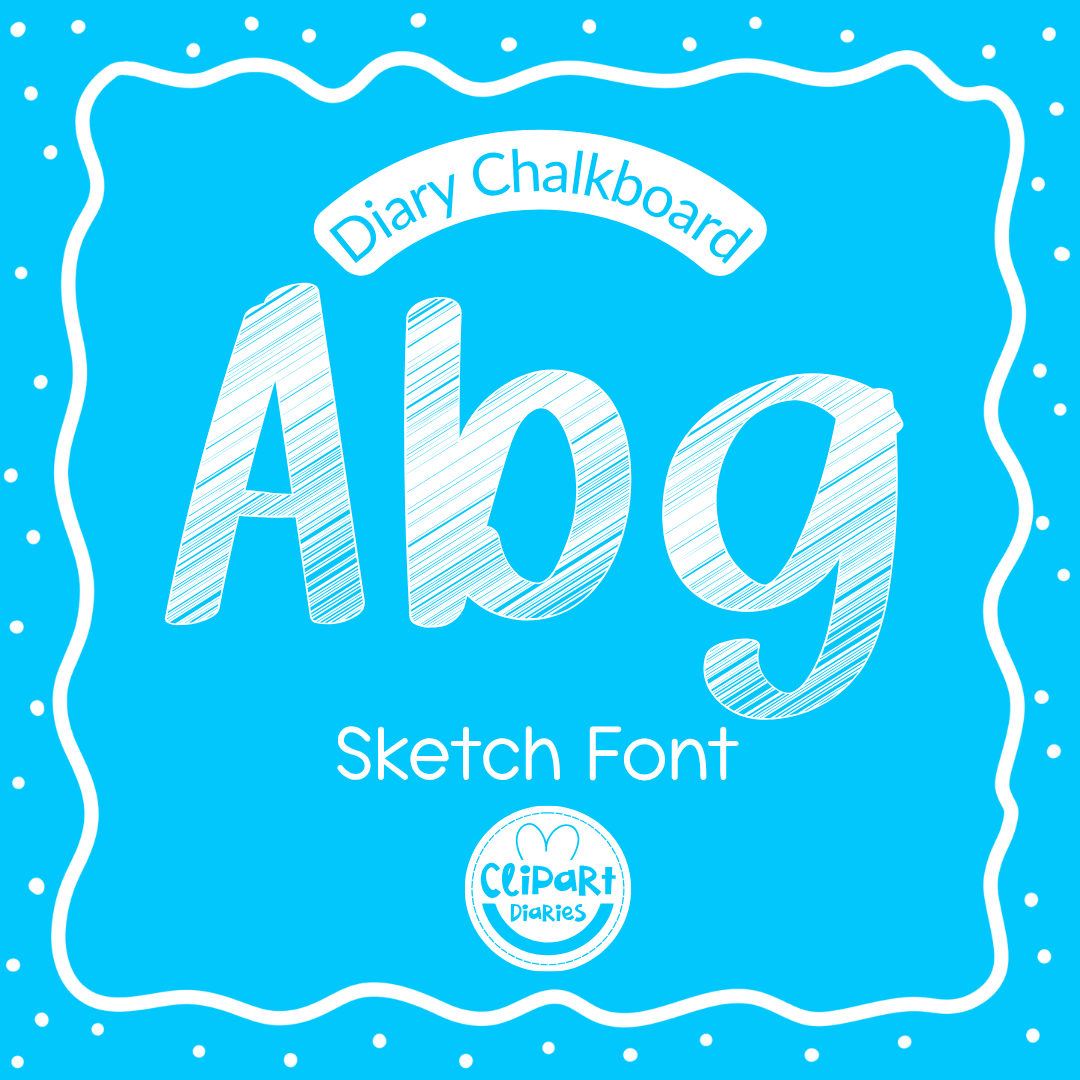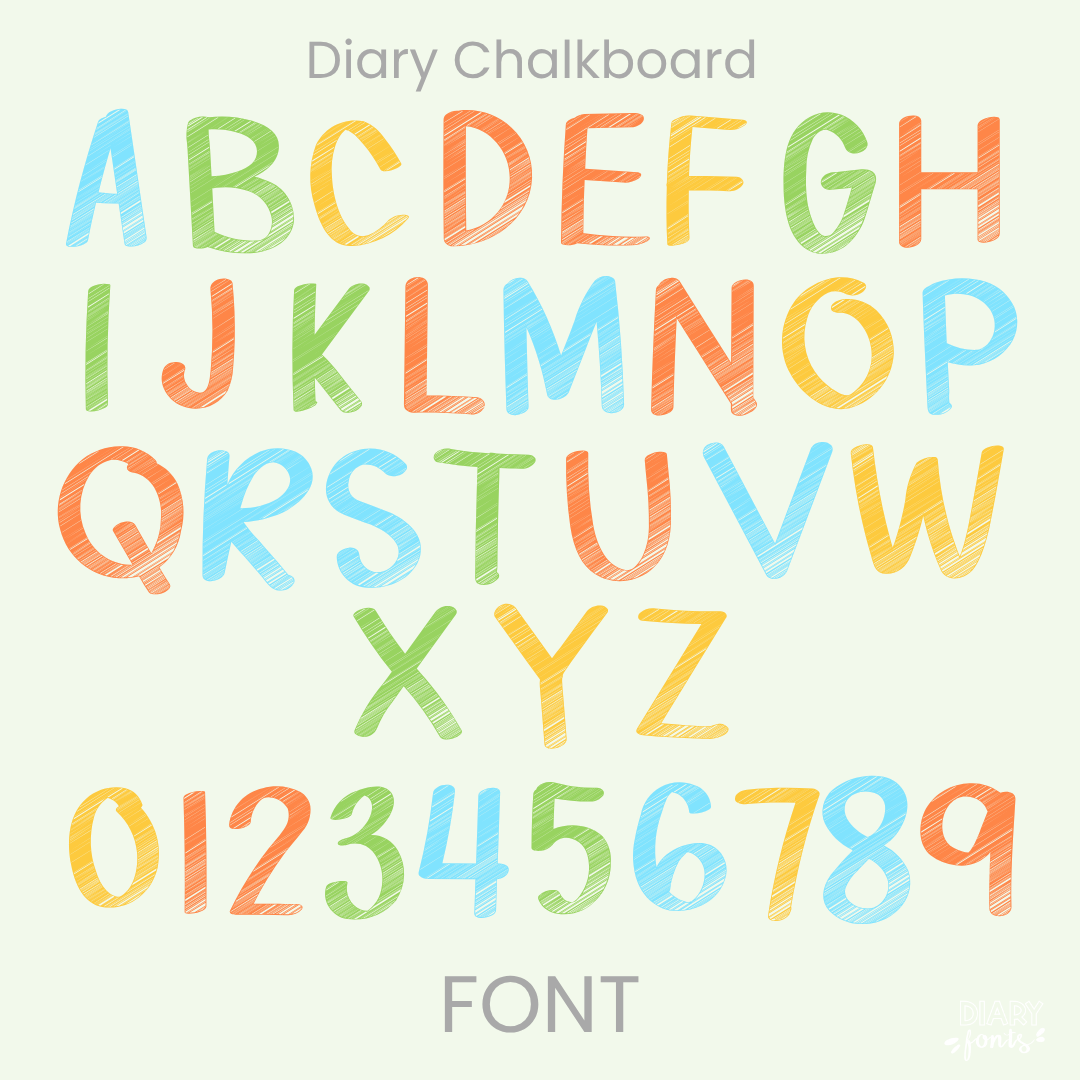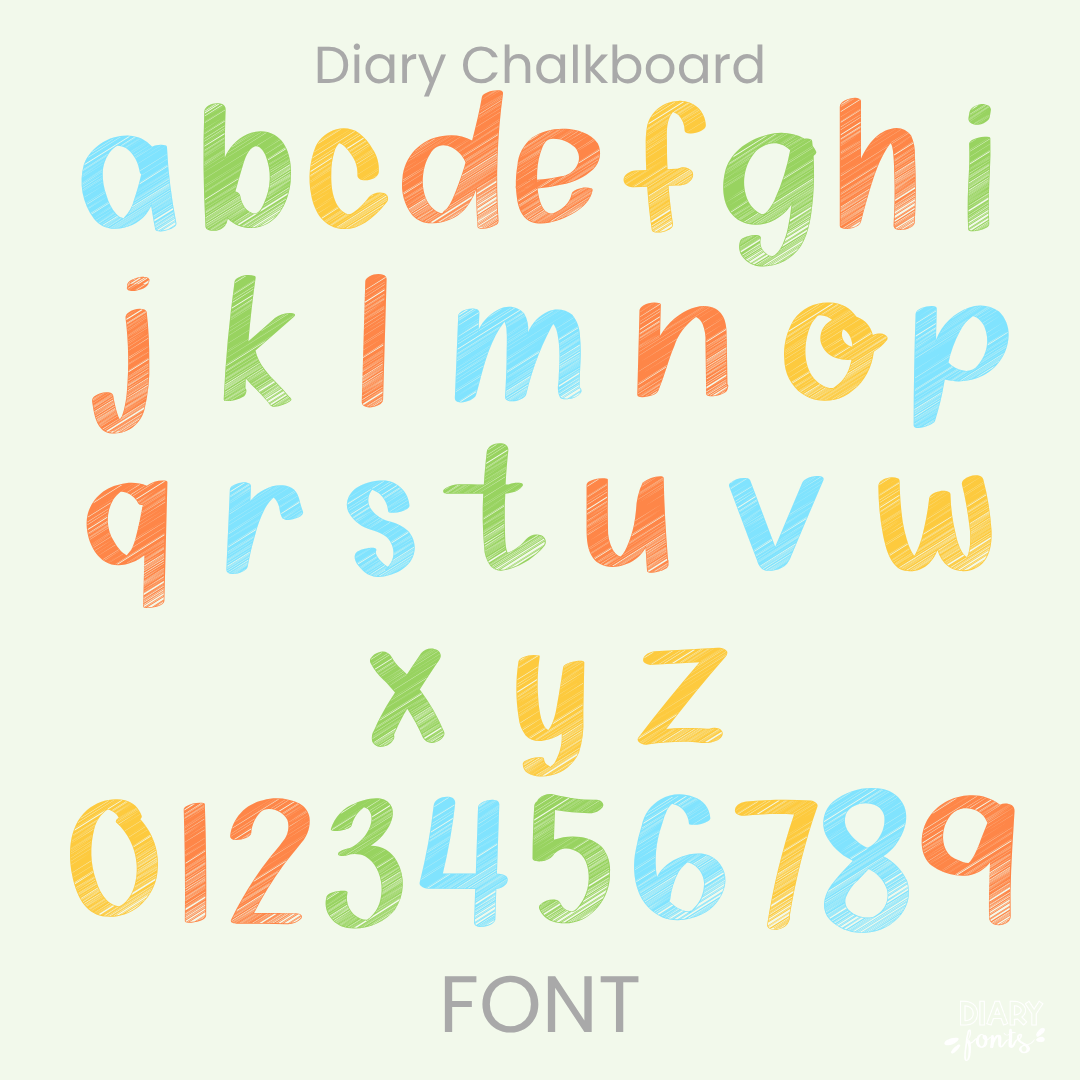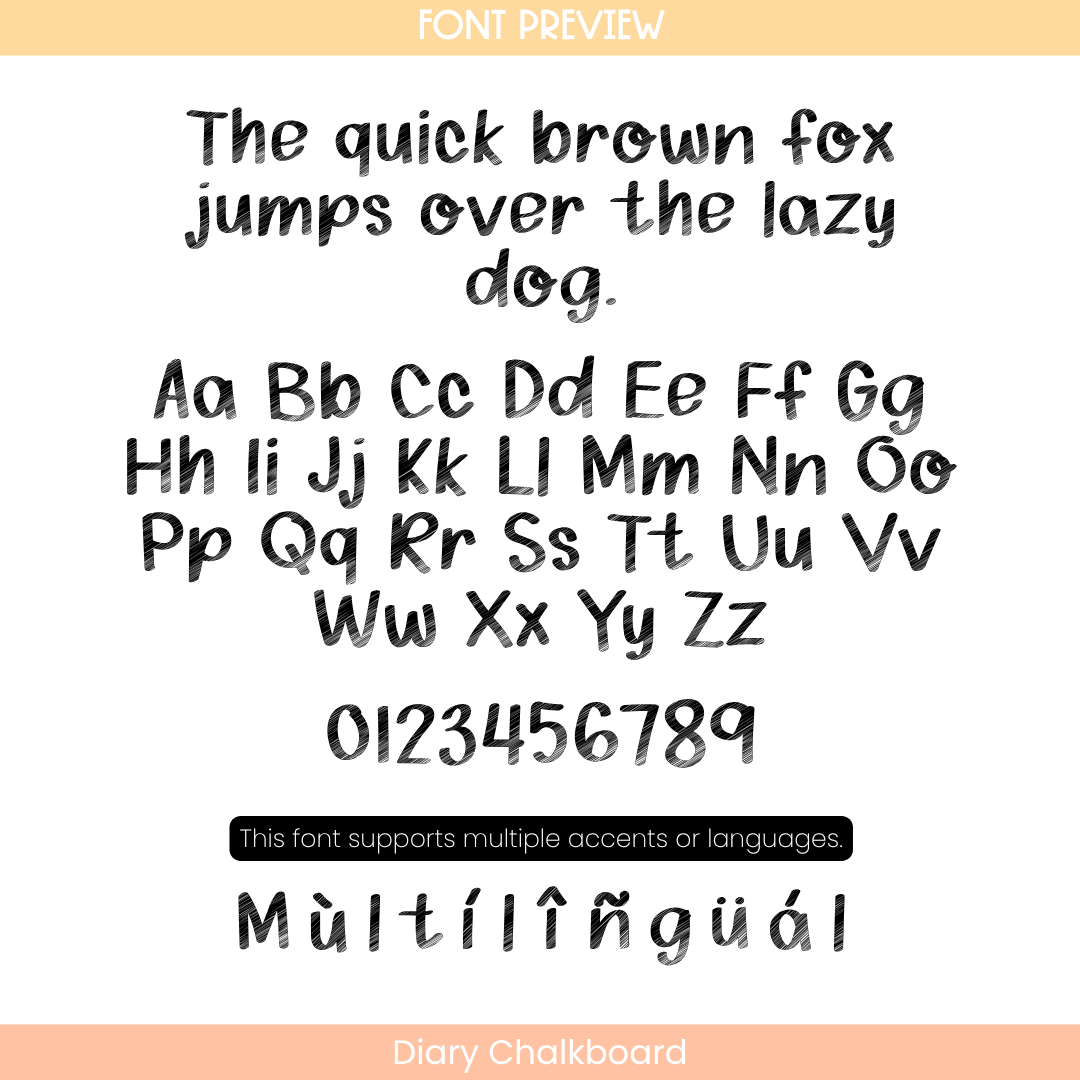
Diary Chalkboard Font
The Diary Chalkboard is a textured sketch font designed to bring the classic, nostalgic feel of a chalkboard to your digital resources and classroom materials.
If you want to recreate that classic classroom vibe, Diary Chalkboard is the perfect choice. It features a unique, etched texture that mimics the look of writing with real chalk. Unlike a solid print font, the “sketch” effect within the letterforms gives your text depth and character, making it a great option for classroom headers, social media graphics, and creative worksheets. This font includes a full set of uppercase and lowercase letters, numbers, and multiple accents to support different languages. It is ready for use in Canva, MS Office, and Adobe Apps, and it works perfectly on the iPad with GoodNotes and Procreate. Whether you are designing materials for your students or products for your shop, this font adds a charming, teacher-centered aesthetic to your work.